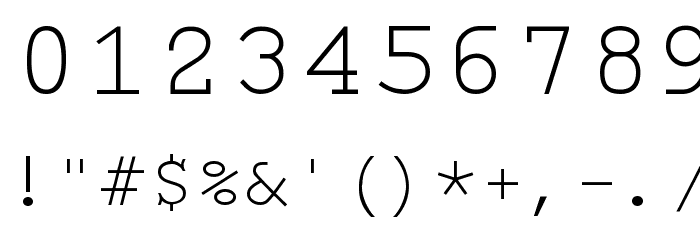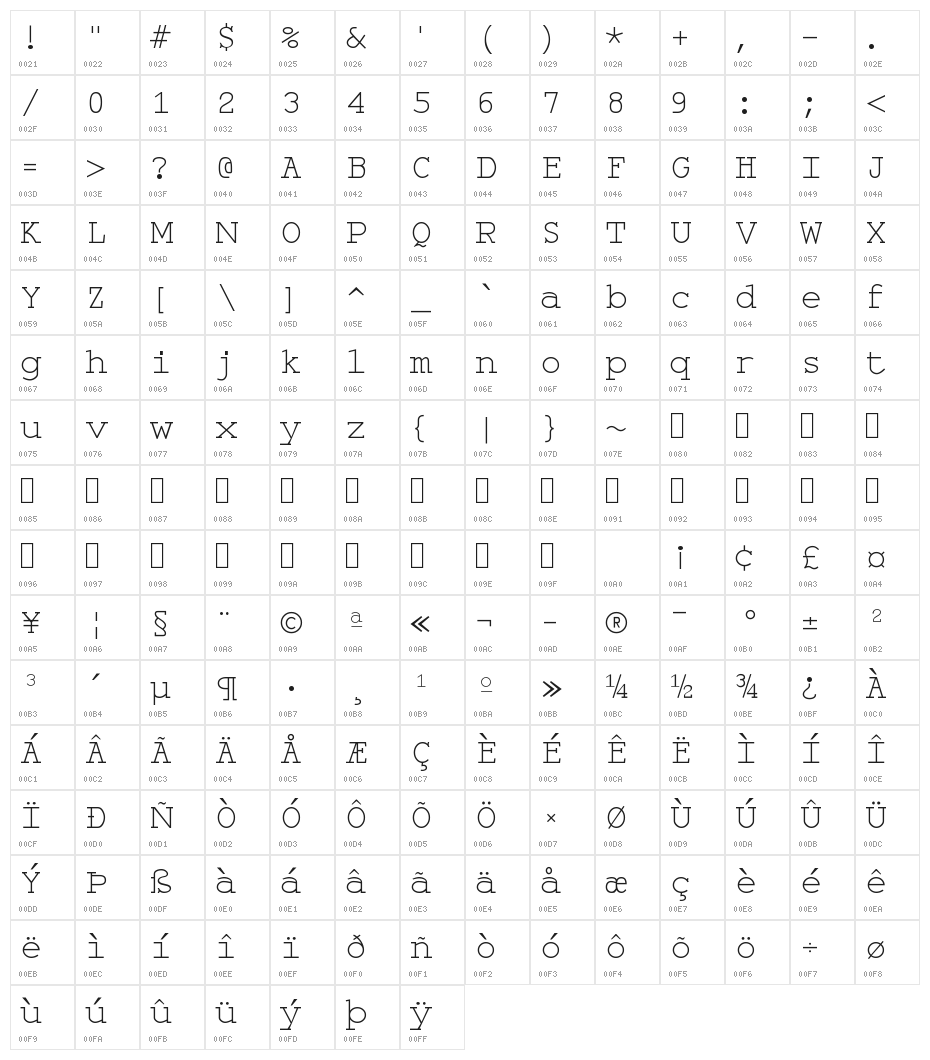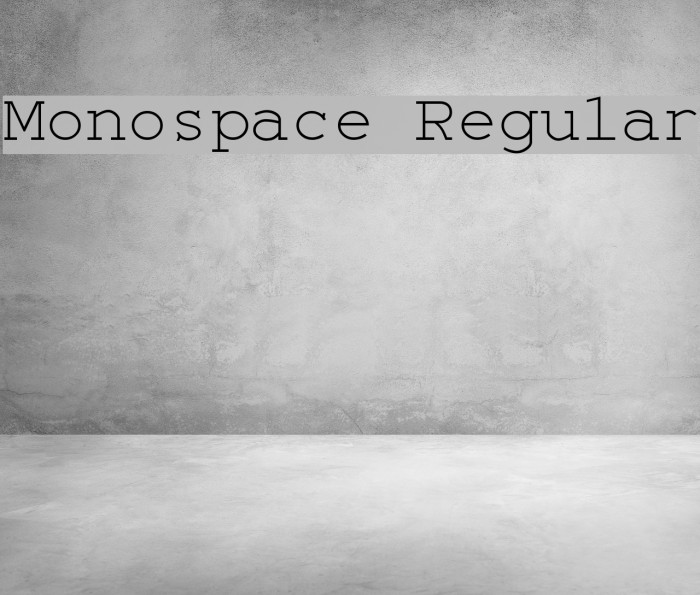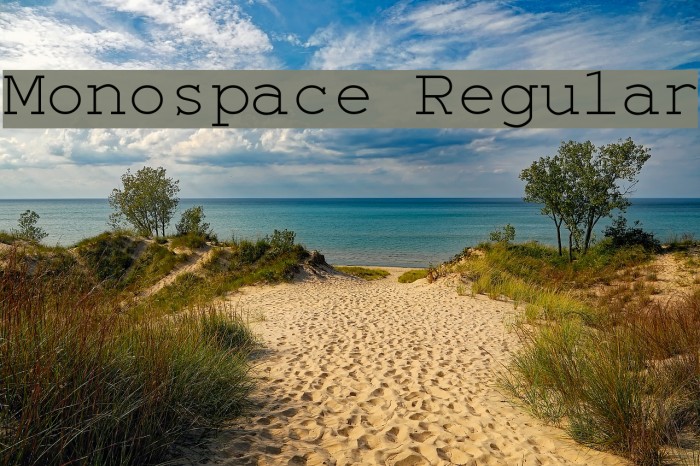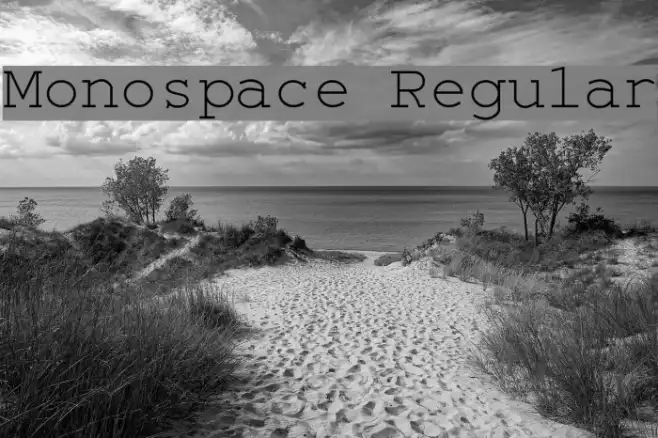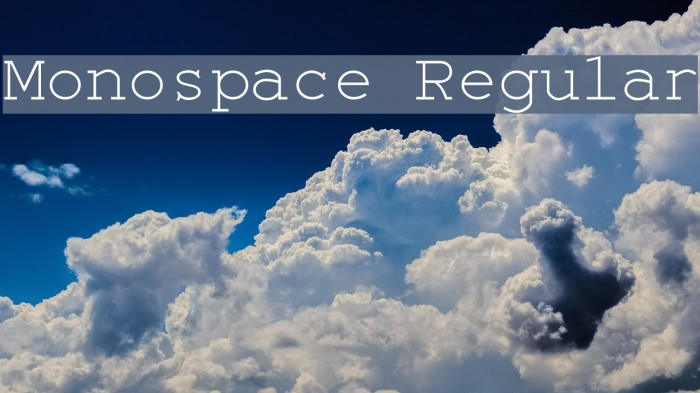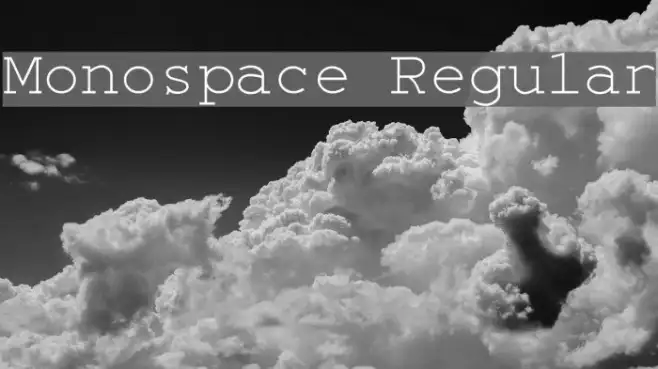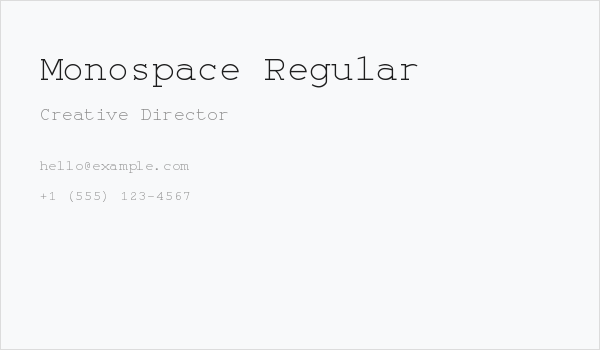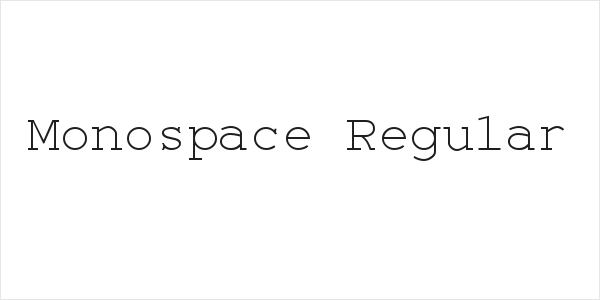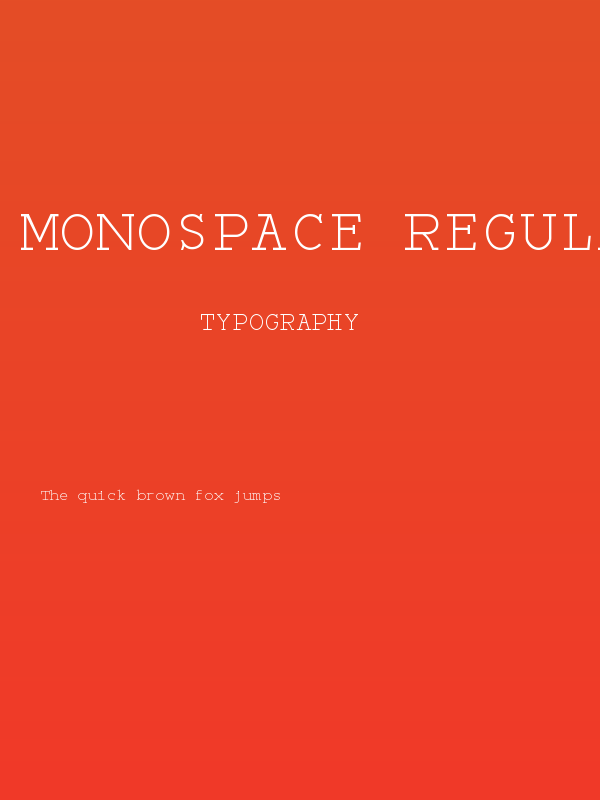
Monospace Regular Font
Monospace Regular Description
This typeface is a classic example of a monospaced font, where each character occupies the same amount of horizontal space. This uniformity gives it a clean and organized appearance, making it ideal for coding and tabular data. The characters are well-defined with a slight geometric influence, providing clarity and readability. The font maintains a consistent stroke width throughout, contributing to its balanced and harmonious look. The uppercase and lowercase letters are distinct, with a subtle elegance that enhances its versatility. The numerals are clear and easy to distinguish, which is crucial for data presentation. Special characters are included, ensuring comprehensive usage across various applications.
| Use Case | Coding, Technical documentation, Data tables |
| Proposed Projects | Perfect for coding environments, technical documentation, data tables, and any project requiring precise alignment. |